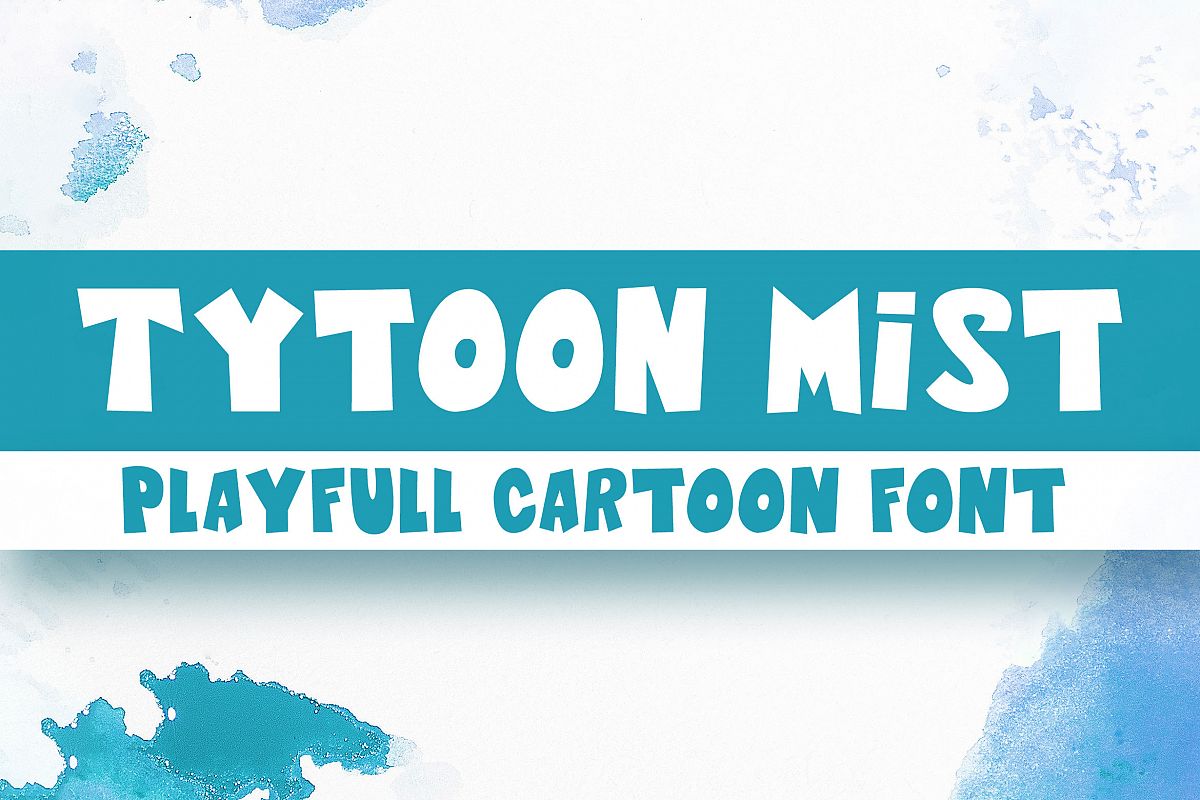
Tytoon Mist - A Playful kids friendly All Caps Cartoon Font.
This font will be perfect choice for the cartoons, video titles, kids products, banners, video games, Invitations and much more.